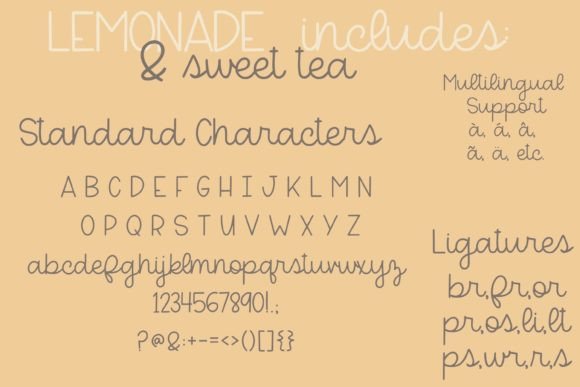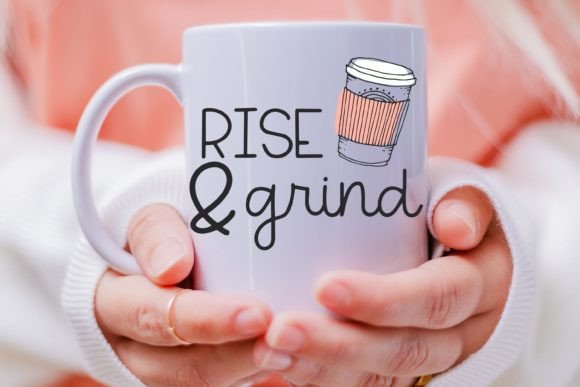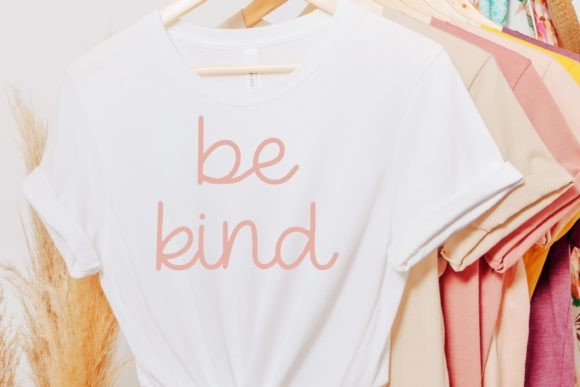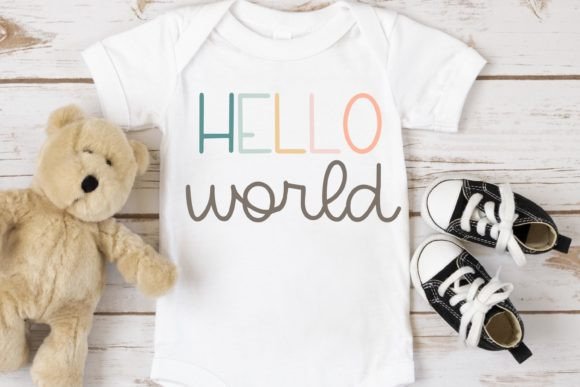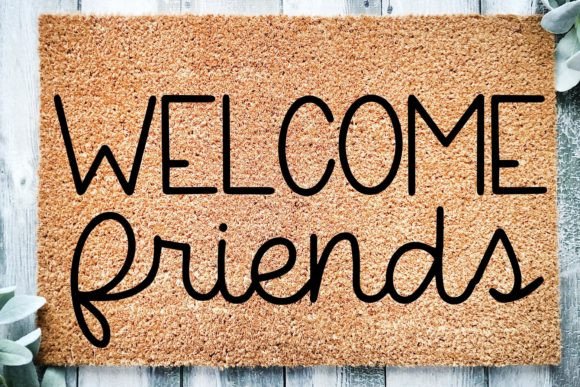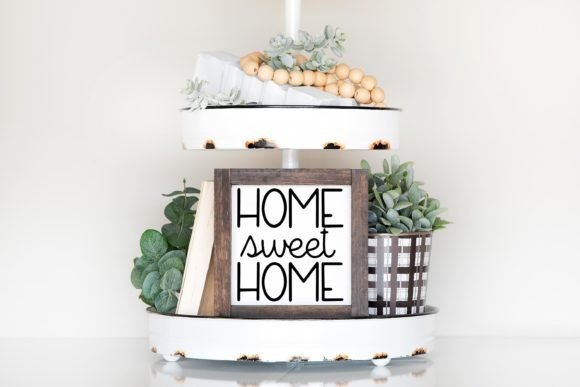
Introduction to Lemonade & Sweet Tea Font
Lemonade & Sweet Tea is an attractive script font that brings sweetness and kindness in the middle of it.
Use this font for various design ideas such as mugs, t-shirt designs, logo designs, and many more This font is PUA encoded which means you can access all glyphs and swashes freely.
Key Features of Lemonade & Sweet Tea Font